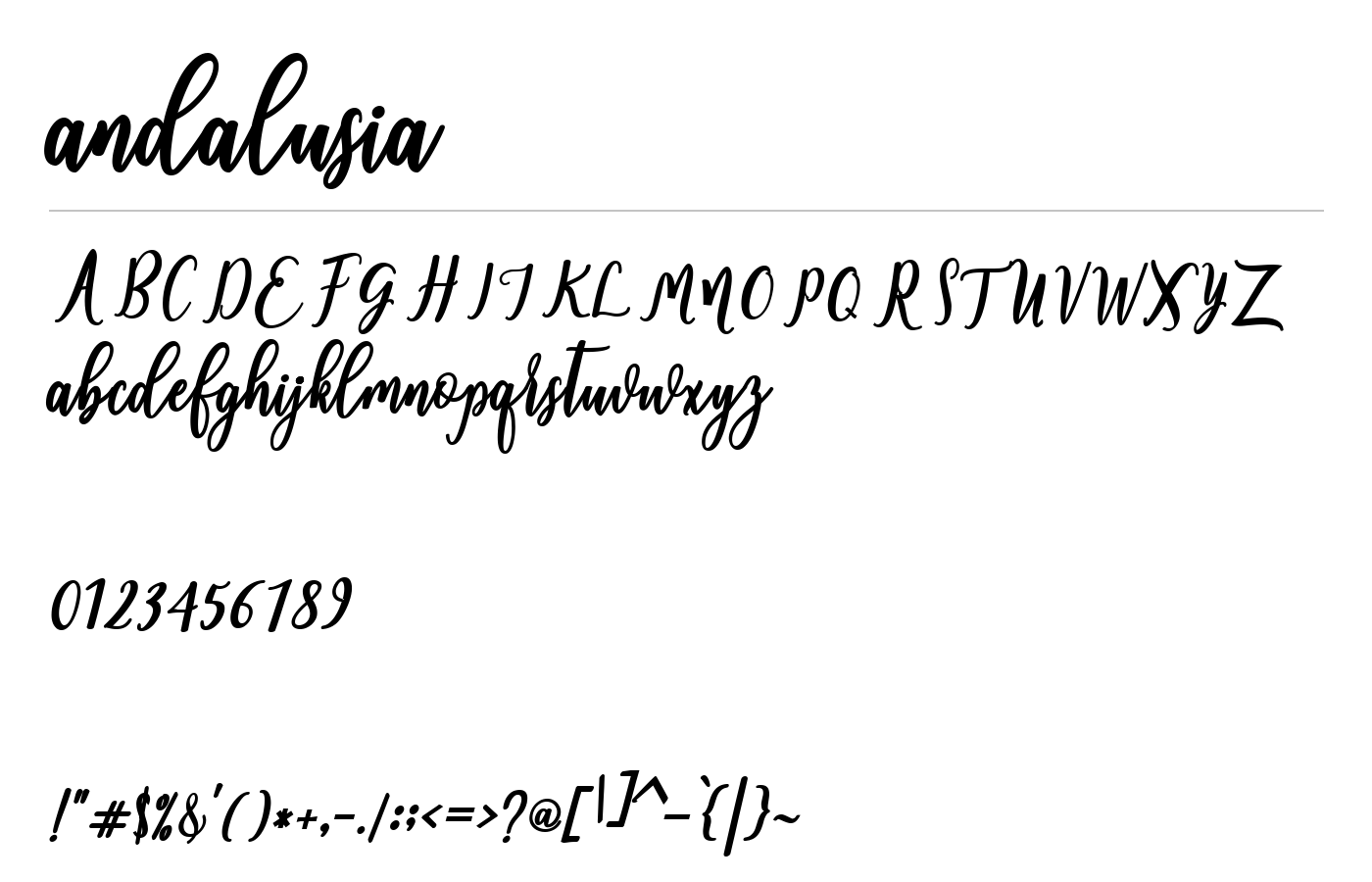
Andalusia is a stylish script font with a smooth, flowing design that combines elegance and a touch of casual charm. Its medium weight and moderately high x-height make it readable yet expressive, suitable for creative and decorative uses such as invitations, branding, and headlines. This font’s handwritten feel and lively strokes convey warmth and personality, making it ideal for projects that want to evoke friendliness and artistic flair.
andalusia Font
About andalusia Font
| Font family | andalusia Font |
| Designer | mrletters_Muhammad Rizal |